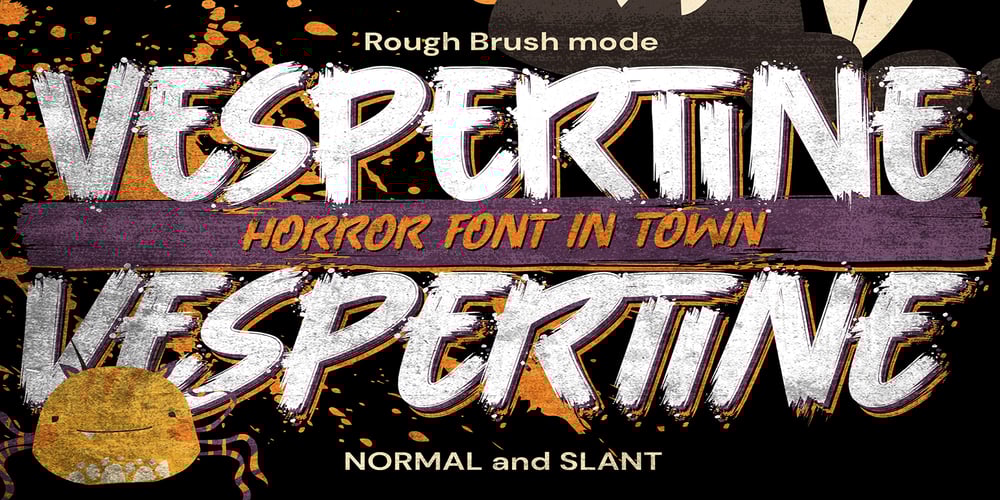
Vespertine Font Family was designed by Abdul Malik Wisnu, Anang Fibriyanto and published by Gassstype. Vespertine contains 1 styles and family package options. Here comes a New font, Vespertine is a Strong Rough Brush Font that is written casually and quickly. comes in two mode = Standart and italic.Letters are made with brushes on Procreate. Then crafted carefully drawn into vector format. That is why Vespertine has Rough and strong characteristic more natural look to your text with a more modern look to your text.